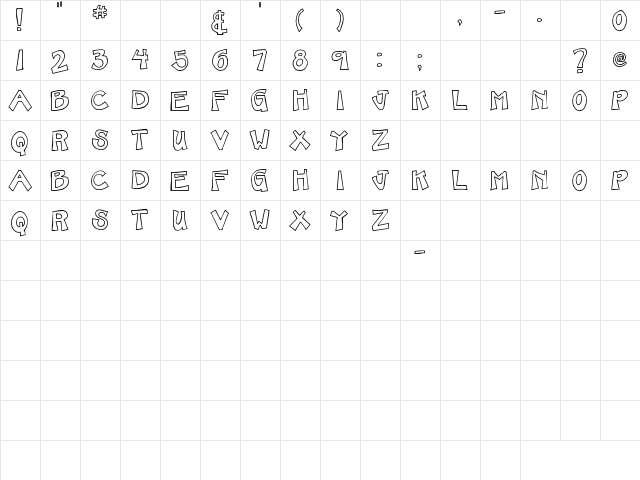
SBC Karen Bear Outline Regular
Design Context for SBC Karen Bear Outline Typeface
SBC Karen Bear Outline is built around its visual character rather than neutral utility — its distinctive forms are designed to make an impression at display sizes.
Font Pairing: Pair with a clean neutral sans-serif for body copy to let SBC Karen Bear Outline's character lead without overwhelming the composition.
Pro Tip: Treat SBC Karen Bear Outline as the centrepiece of your typographic hierarchy. One strong heading set in a decorative face can carry an entire layout.